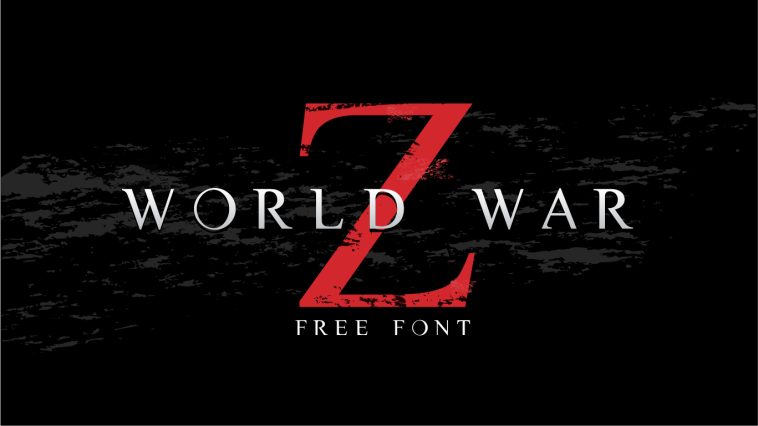
I’ve watched World War Z a million times, and I always wished it had been followed by a sequel. Unfortunately, that still hasn’t happened…though who knows, maybe one day it will.
In the meantime, we make do with what we have, and fan poster art is always a fun way to keep that world alive. If you’re one of those artist-fans, you’ve probably searched the internet for the font used in the World War Z movie title.
Free World War Z Font – CM Tiempo
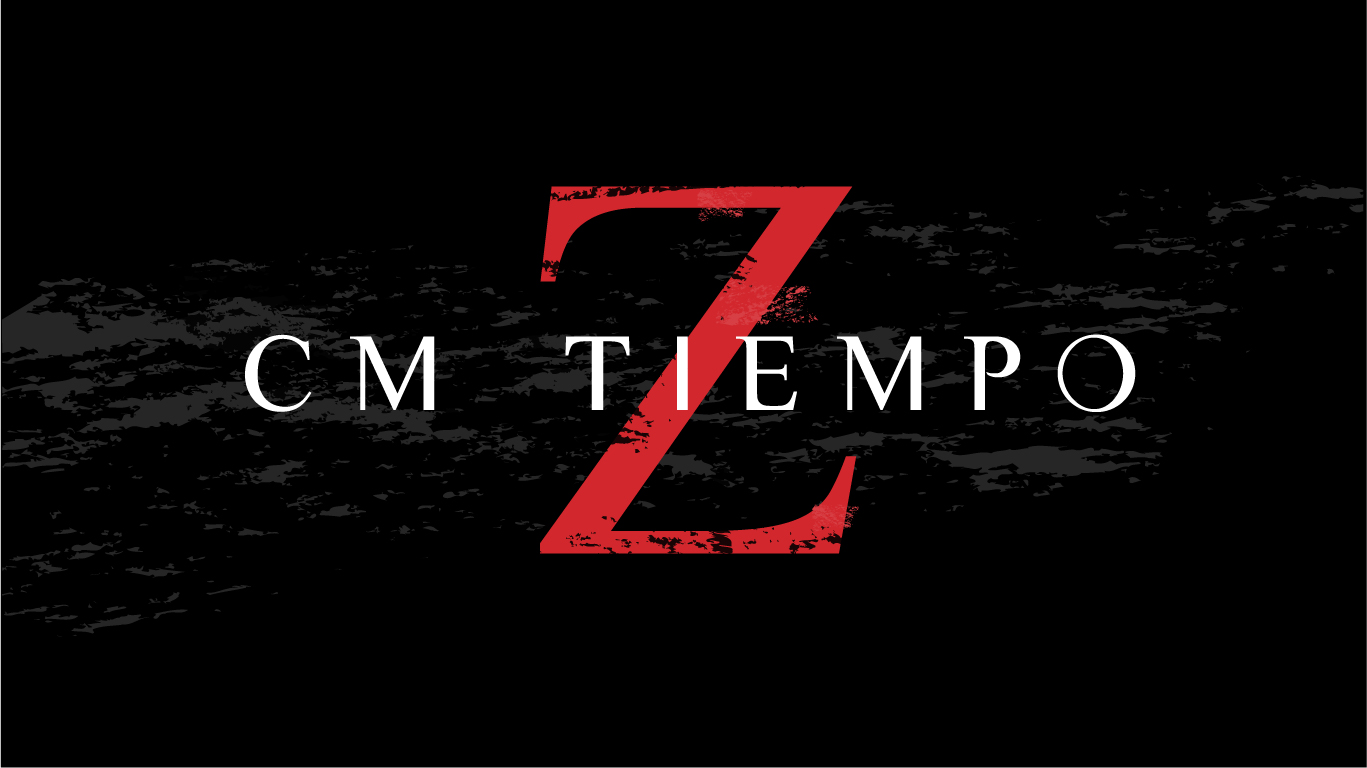
- Designer: Charly Masci designed the CM Tiempo typeface which is inspired by the World War Z movie title. It is surely a great replica and I think the only observable difference is the letter “O” which is slightly changed from the original title. In any case, the author information and any font usage requirements are listed in the zip file.
Similar World War Z Movie Fonts
Atari Font has 6 display fonts included and I like it as a World War Z title substitute because of the classic letters with sharp serifs. This font can be easily used in any theme and still look appropriate.
Second viable option is Wikolia Rough Font. You must have noticed in all the original World War Z promotional posters that the capital letter “Z” is used as a backdrop icon. That letter has a “brush” effect applied to it to make it seem more eroded and menacing. Well Wikolia Rough typeface has that sort of effect and it is a nice looking serif font that looks similar enough to the CM Tiempo.
My last pick is Media Times typeface. Its clean, timeless serif font with extra sharp serifs that work good in World War Z title, so if you’re looking for a workable replica that would give out the same feel as the CM Tiempo this is your safe bet.